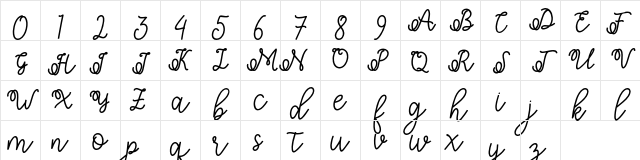
Shafiyyah is a composed and adaptable typeface that performs quietly and consistently across a wide range of design contexts.
Pro Tip: Use Shafiyyah in both headline and body roles to test its range before committing to a single application.